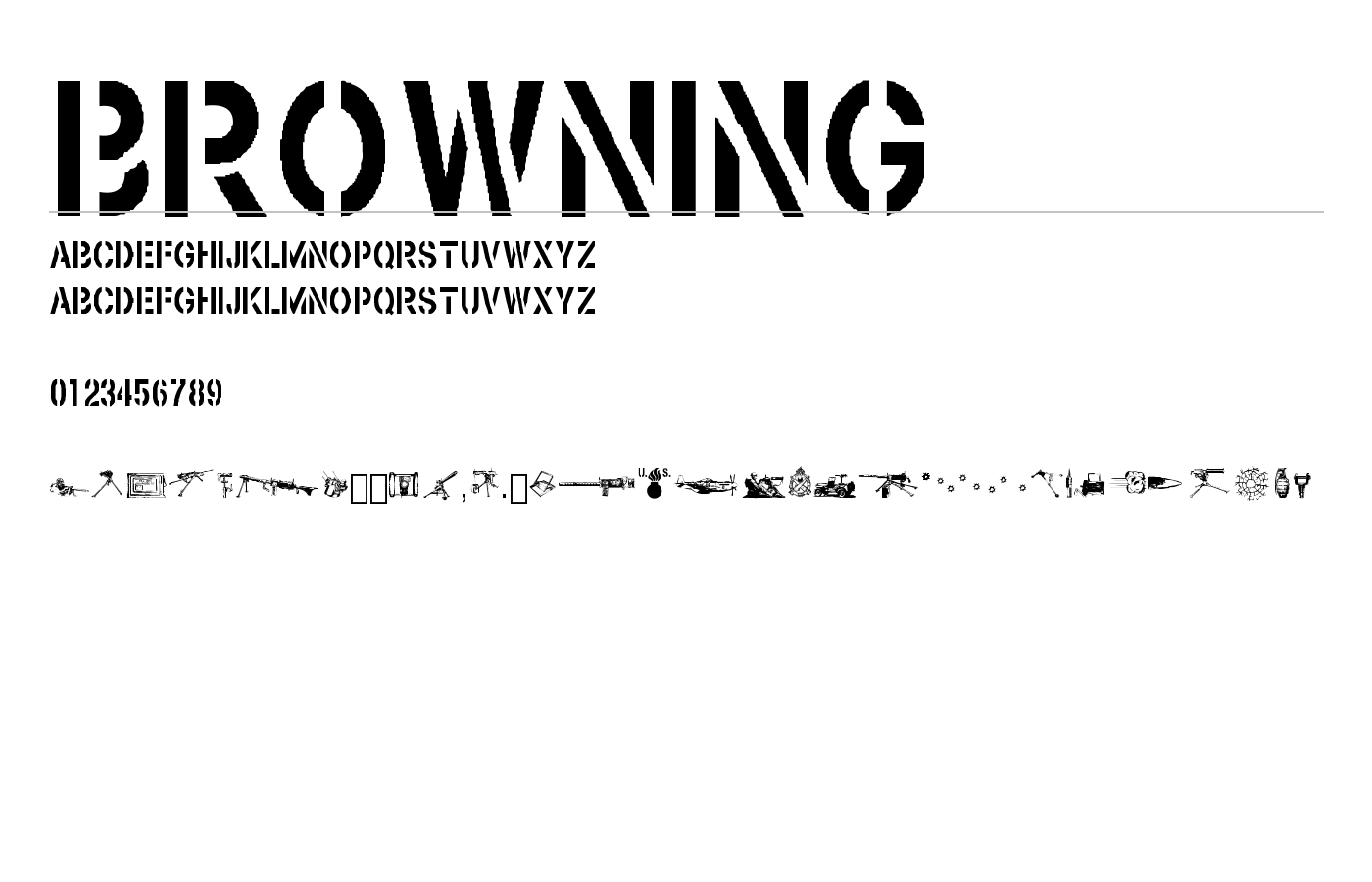
Browning is a bold, condensed stencil sans serif font characterized by strong geometric shapes and sharp edges, giving it a distinctive industrial and military-inspired feel. Its high contrast between solid and cut-out areas creates a striking visual impact, making it ideal for headlines, logos, and packaging where a tough, authoritative style is desired. This font works best in contexts that need a powerful and rugged aesthetic, such as tactical branding, sports themes, or edgy editorial design.
Browning Font
About Browning Font